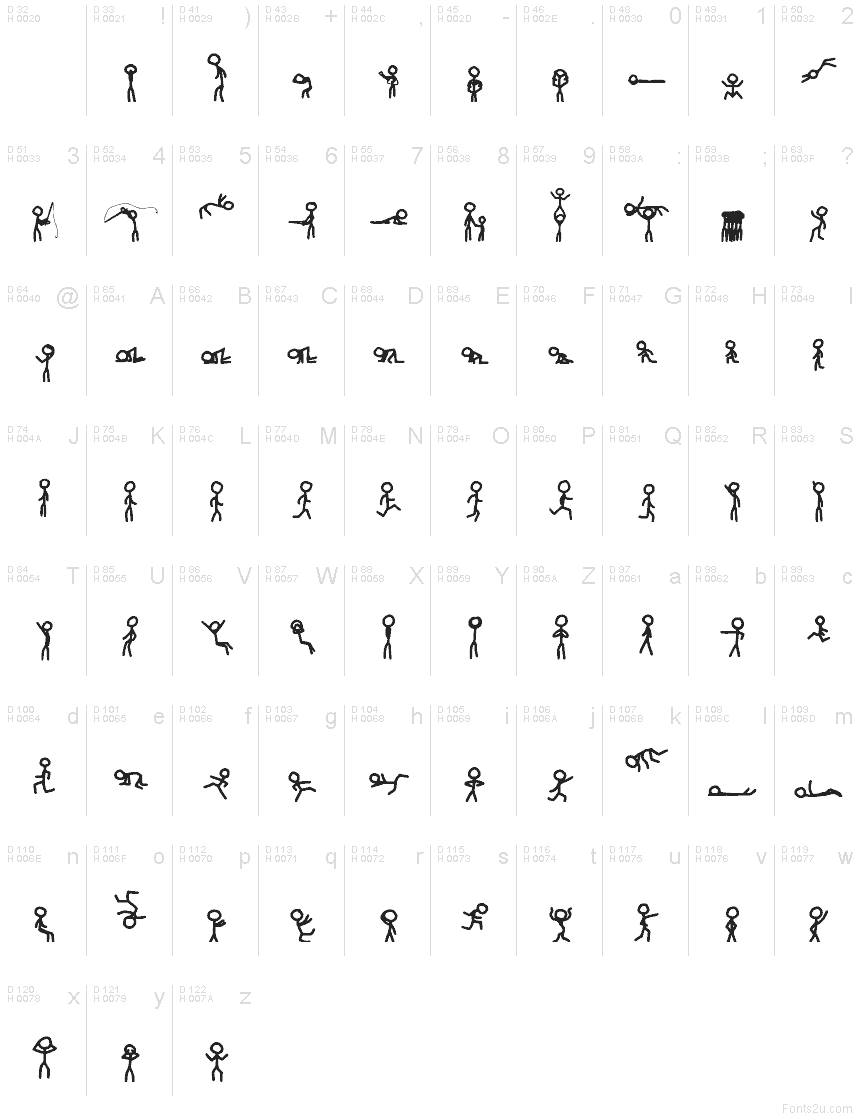
Stick Figure Font Regular
Stick Figure Fonr font by Second Coming is a free cartoon dingbat font. When you need quick, readable people icons with personality, it hands you a whole cast of stick figures-cheering, sprinting, flipping, reading, strumming-drawn with loose, inky strokes that feel lively and human. Each glyph pops in clear silhouettes, so you can drop tiny illustrations straight into layouts without hunting for stock art.
Using Stick Figure Fonr, you can mark up classroom worksheets, camp schedules, kids’ posters, PE or fitness charts, lighthearted safety signs, event flyers, or playful infographics. The simple forms hold up at small sizes and become delightfully bold when enlarged. Pair this free font with a clean, unobtrusive sans to keep text legible while the figures carry the fun.